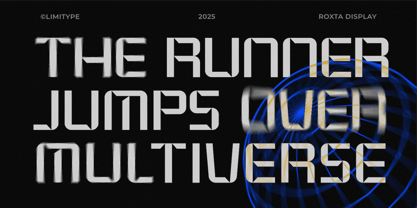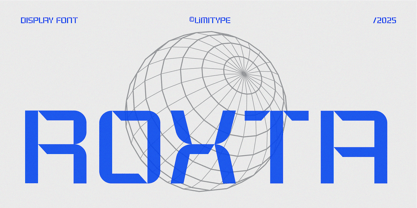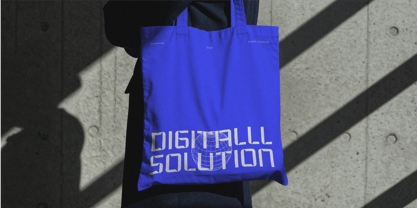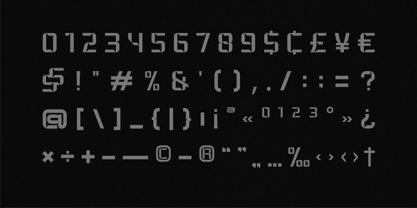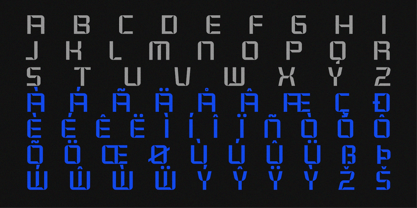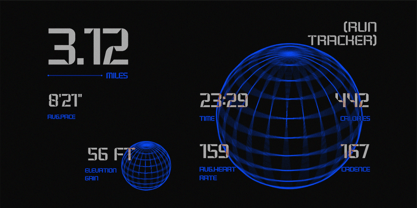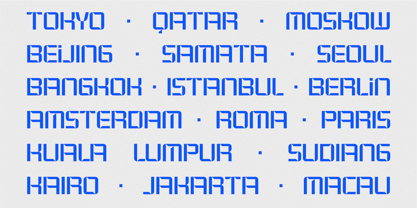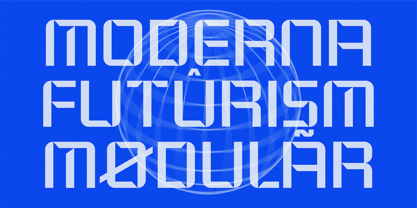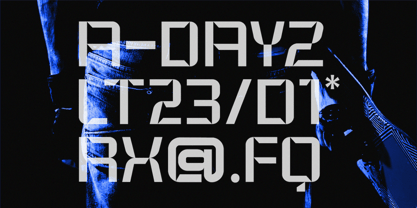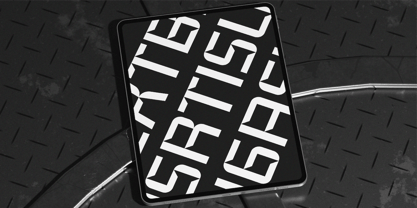
Roxta
by limitype
The Roxta Font Family was designed by Muhammad Muammar, Furqan Sudirman and published by limitype. Roxta contains 1 styles. More about this family
Roxta is modular display font that blends modern design with a futuristic digital aesthetic. Its unique, geometric letterforms are designed to grab attention, making it the perfect choice for digital projects, technology brands, gaming designs, and creative headlines. Whether you're creating a striking logo, eye-catching poster, or cutting-edge website, Roxta adds a sleek, contemporary edge to your typography. Explore the future of design with Roxta, where modular shapes meet modern digital style
Roxta available with:
- AllCaps Font
- Numbers
- Symbols
- And multilingual
Designers: Muhammad Muammar, Furqan Sudirman
Foundry: limitype